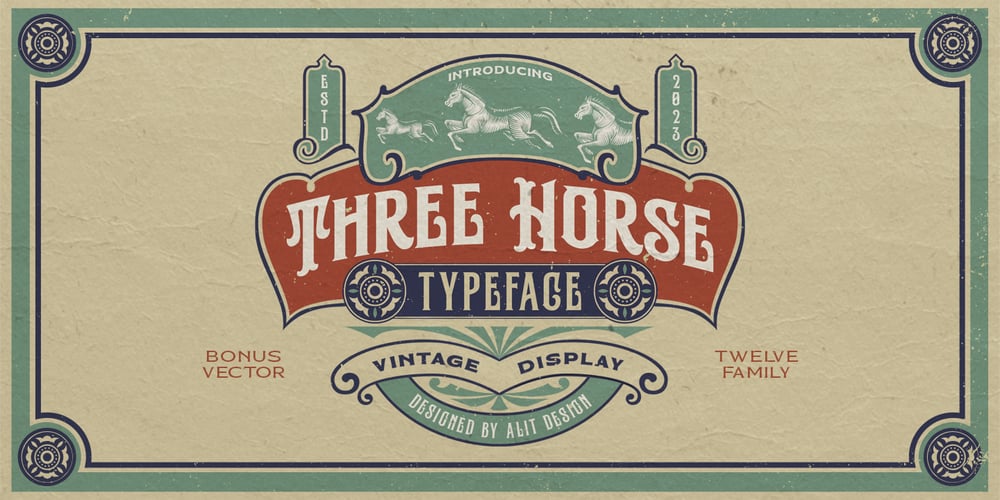
Three Horse
Three Horse font
Three Horse Font Family was designed by Alit Suarnegara and published by Alit Design. Three Horse contains 11 styles and family package options. Introducing the “Three Horse” Vintage Letter Font Collection – a captivating journey into the artistry of yesteryears. This remarkable font family embodies the essence of vintage charm, offering 12 distinct font variations that encapsulate the character and nostalgia of classic letterforms. The “Three Horse” collection is your gateway to a world of timeless design, perfect for projects seeking to evoke the allure of eras gone by.